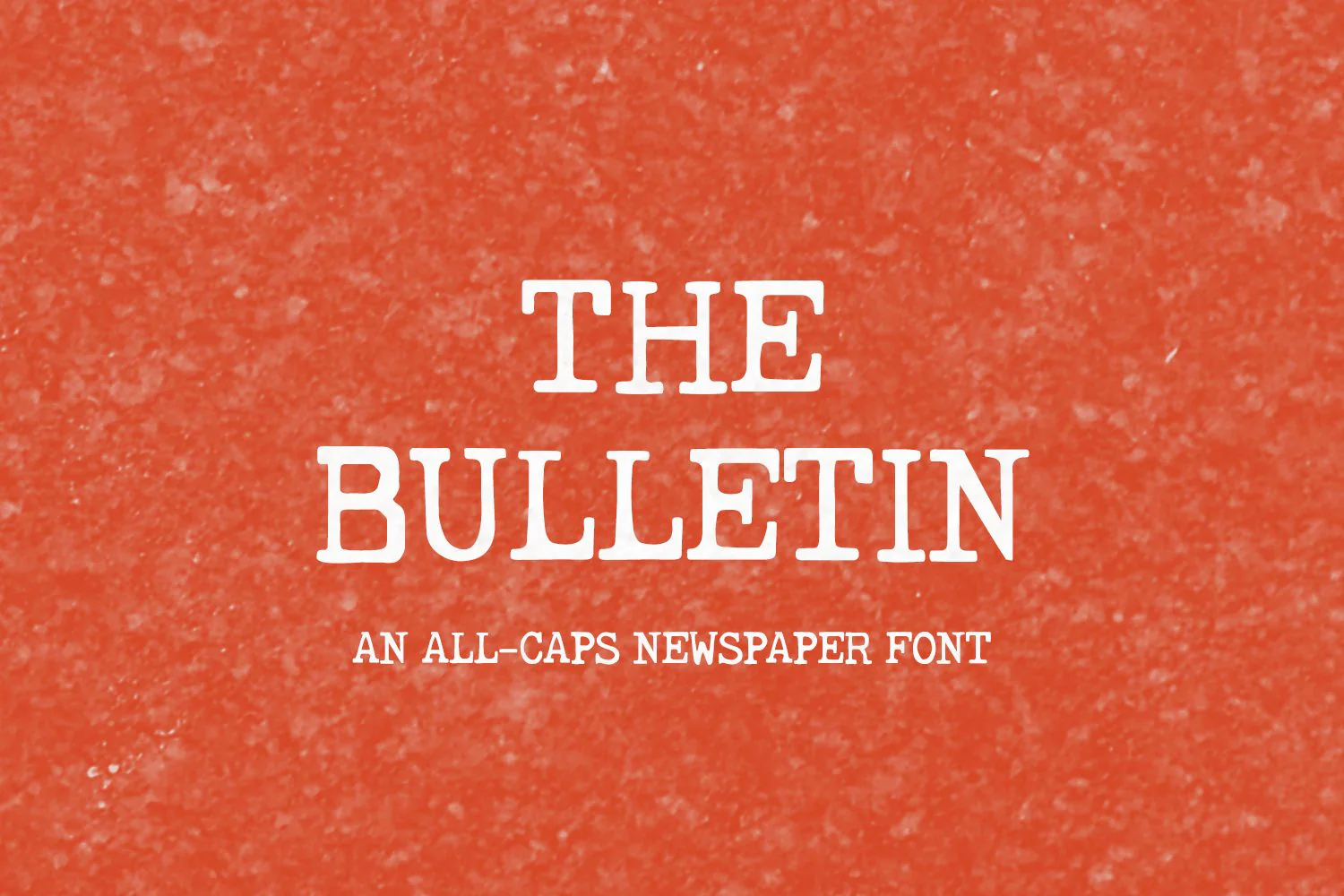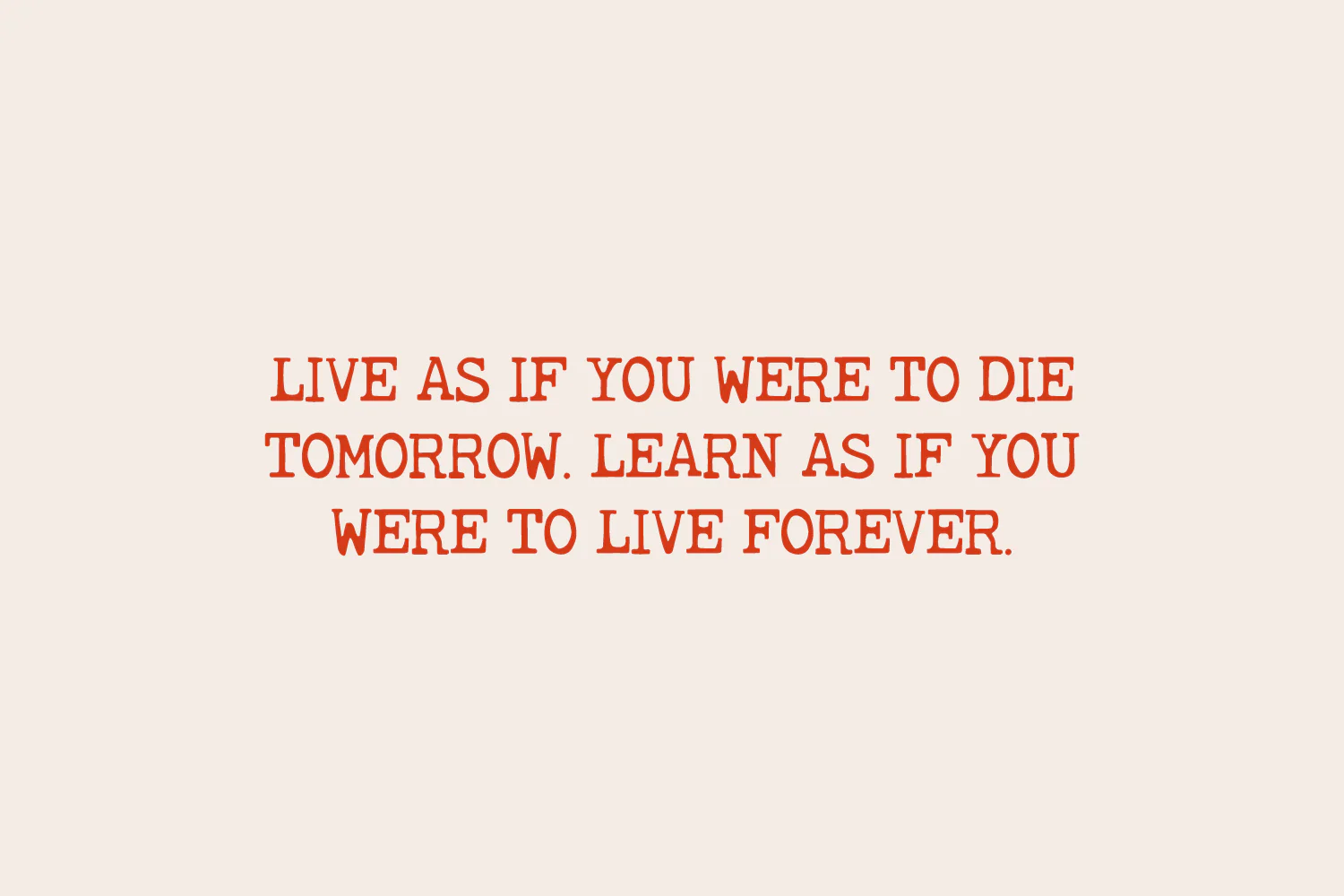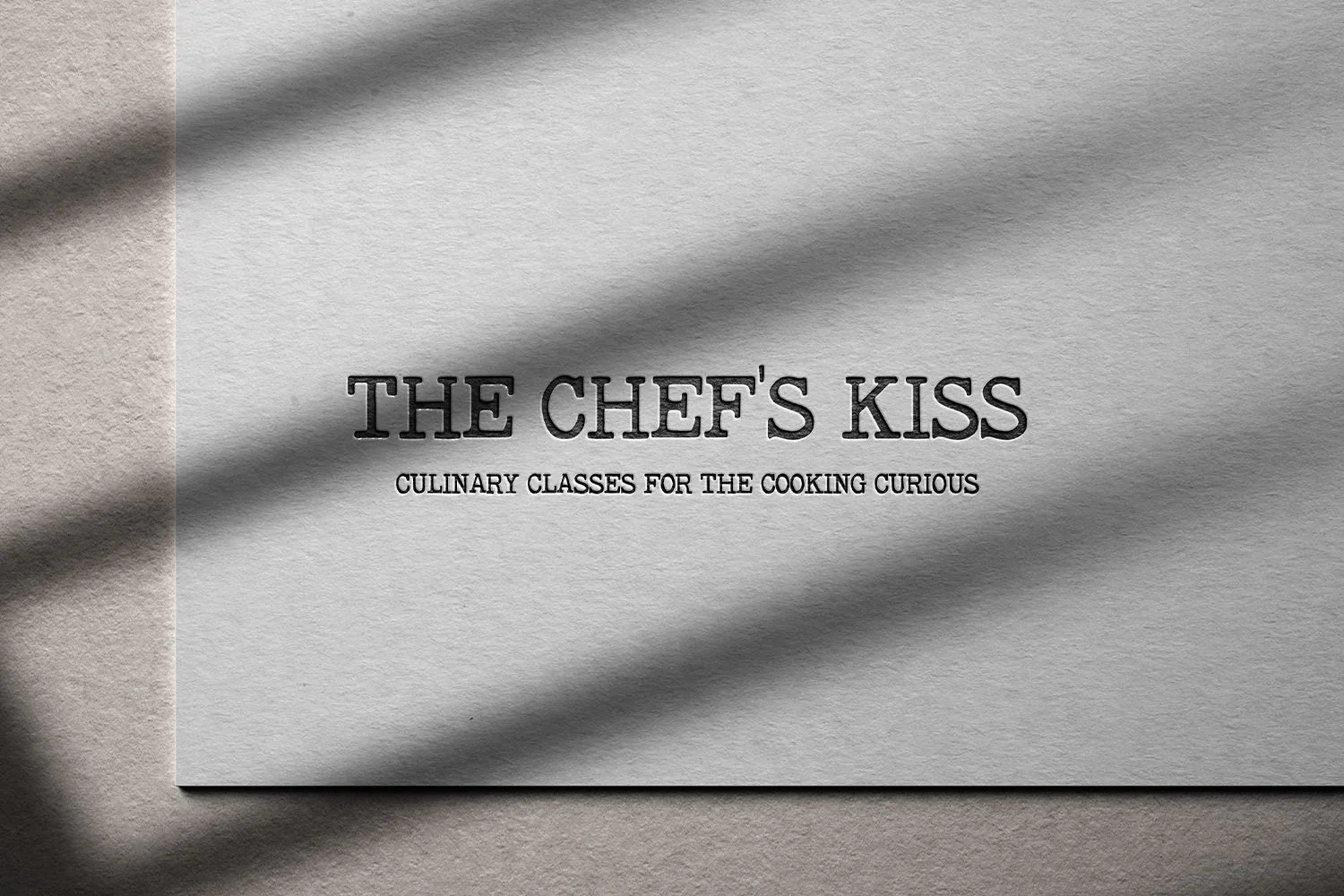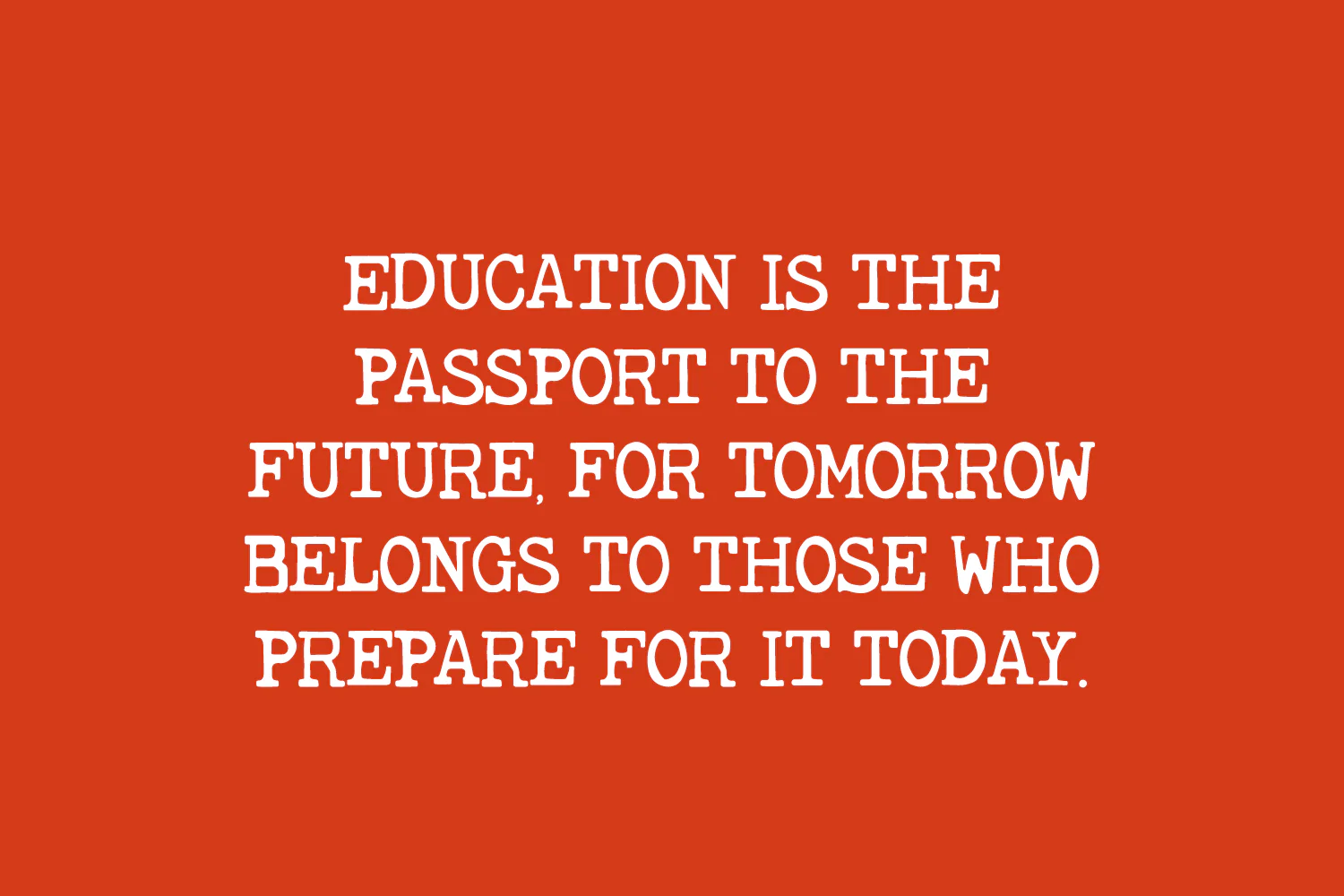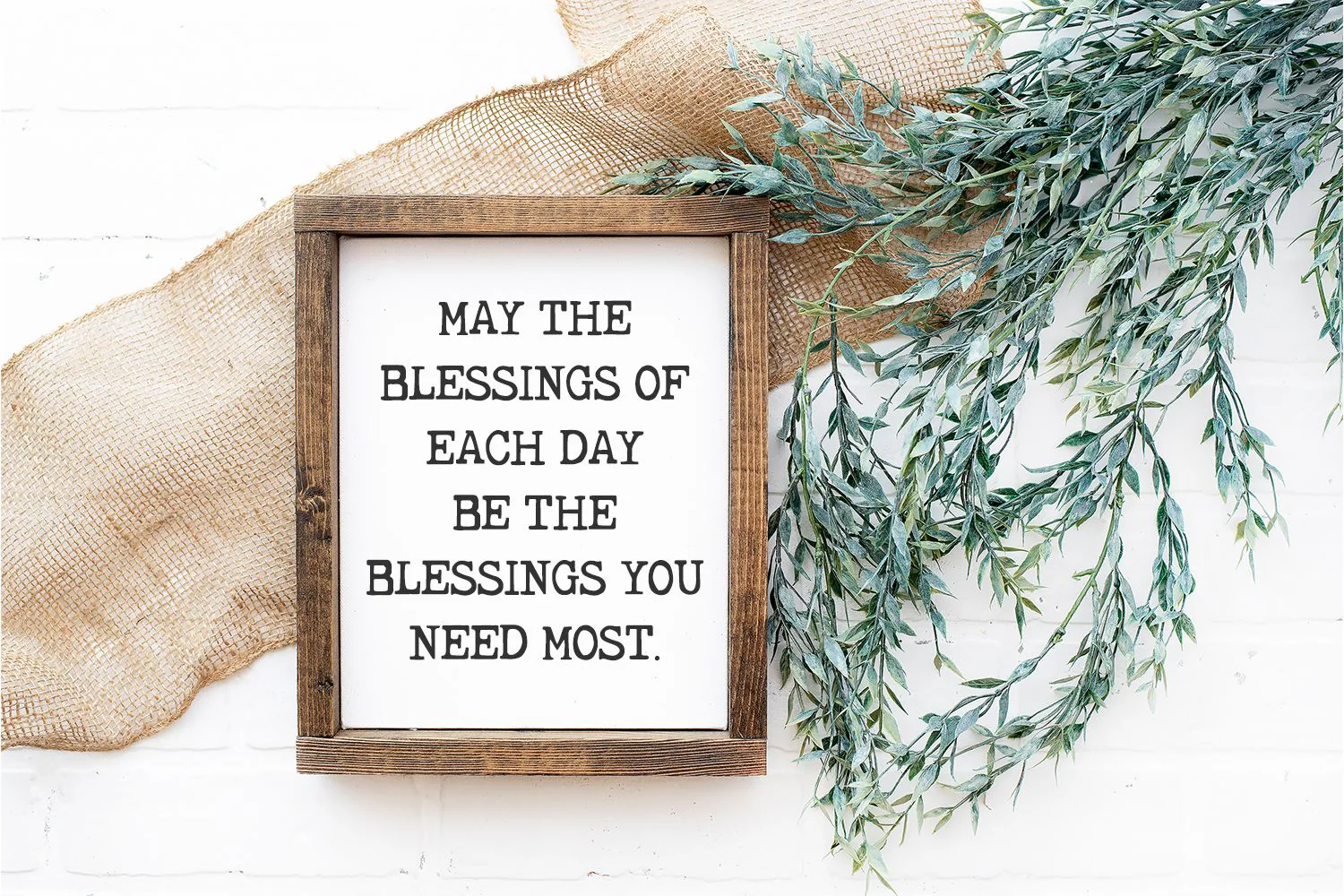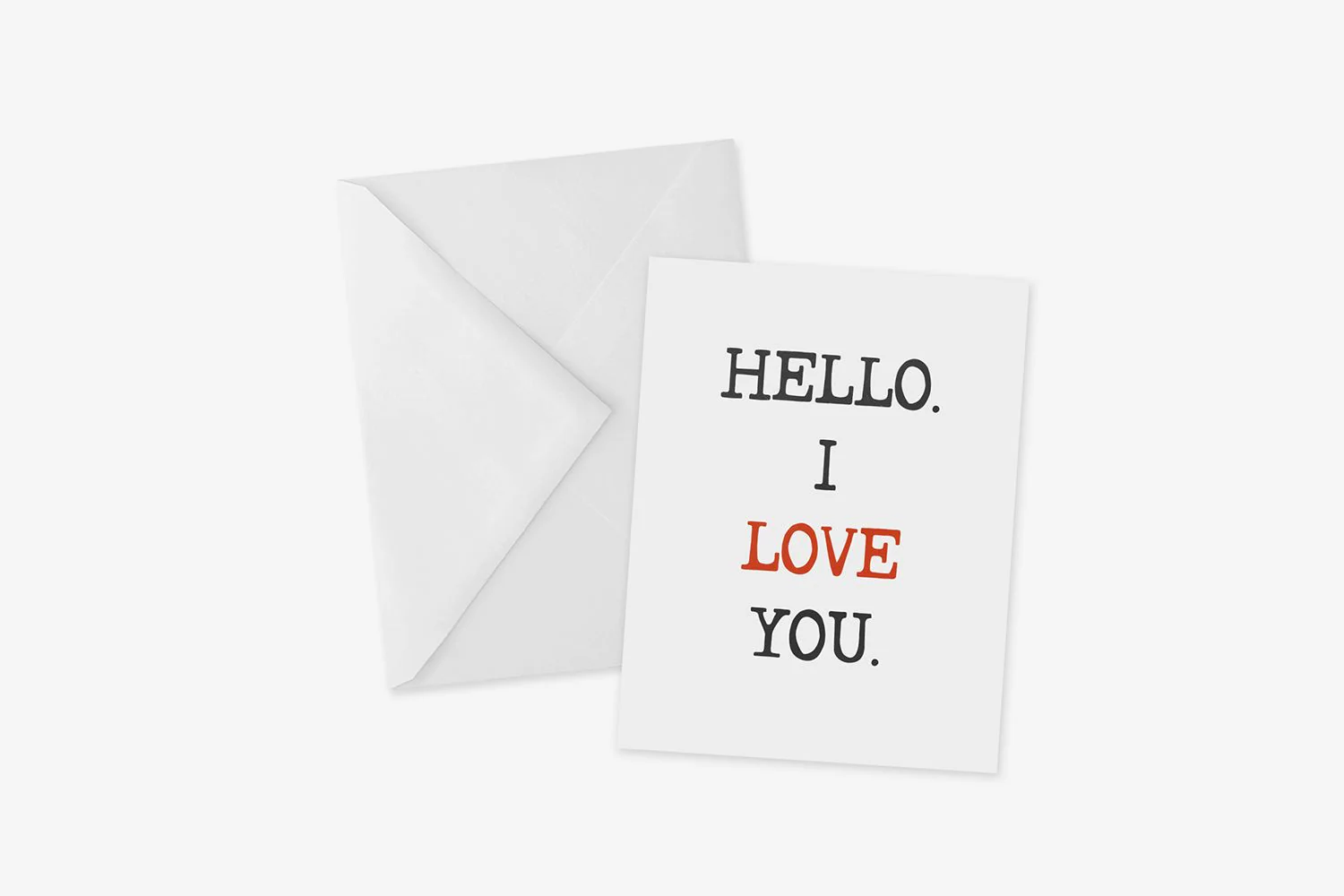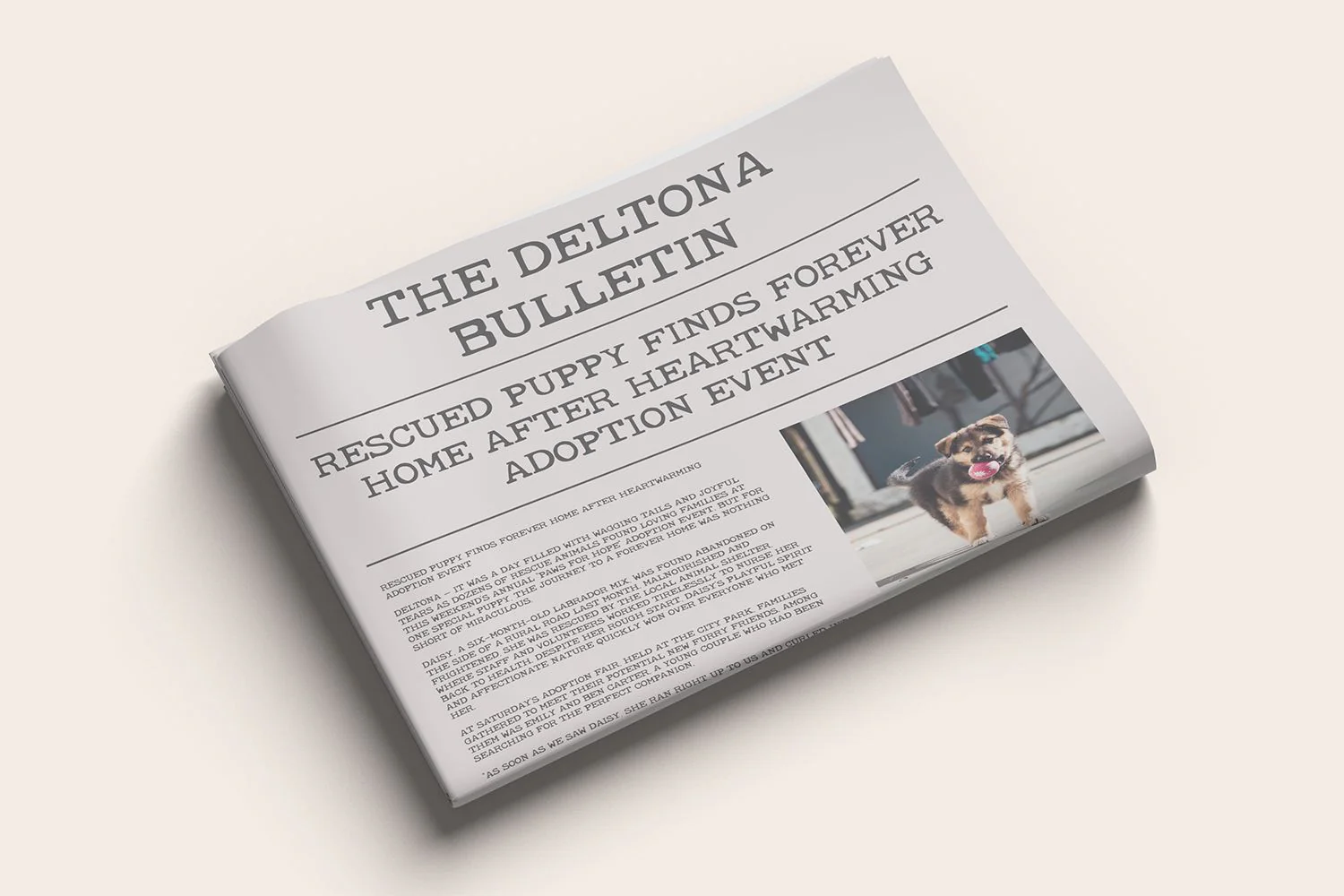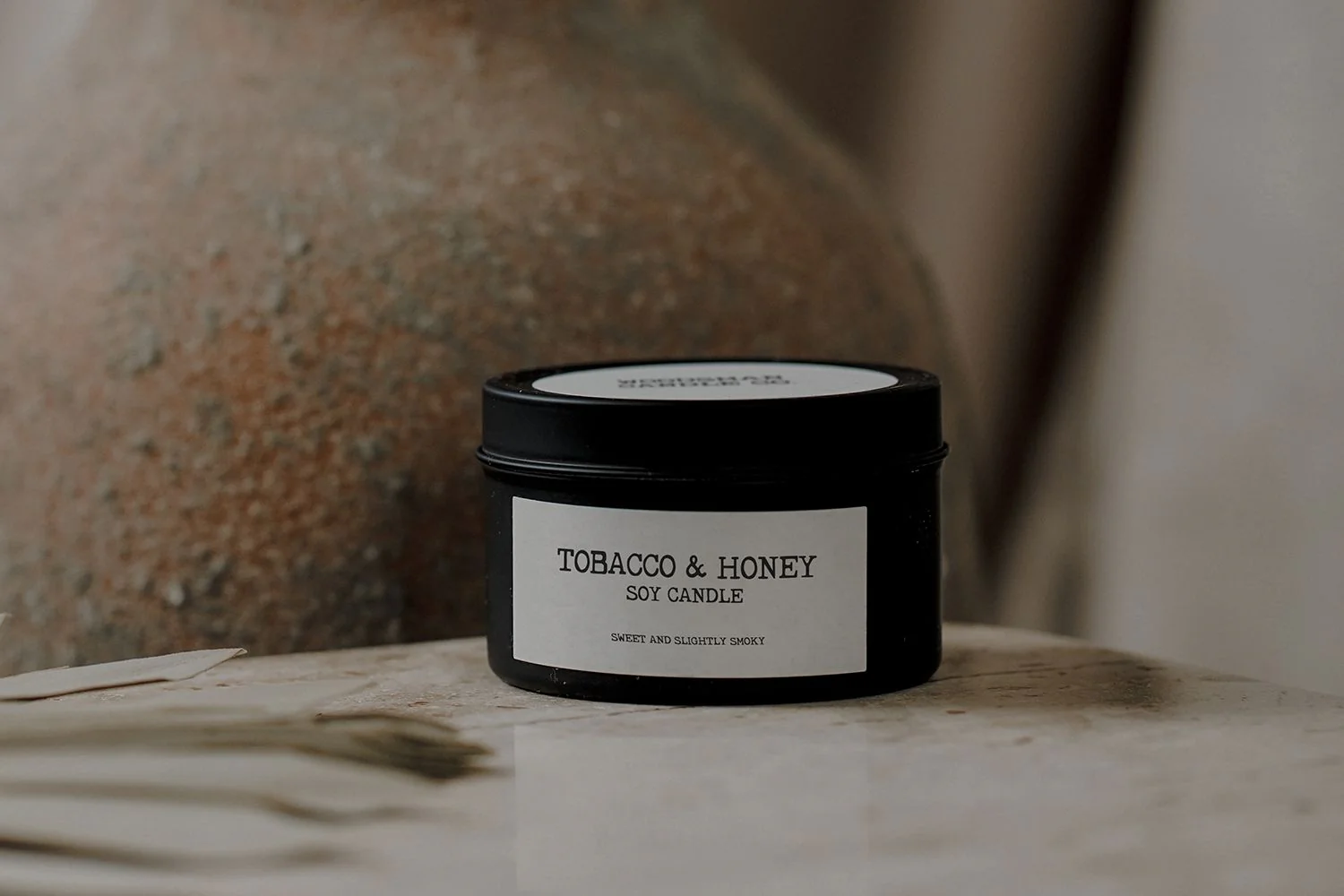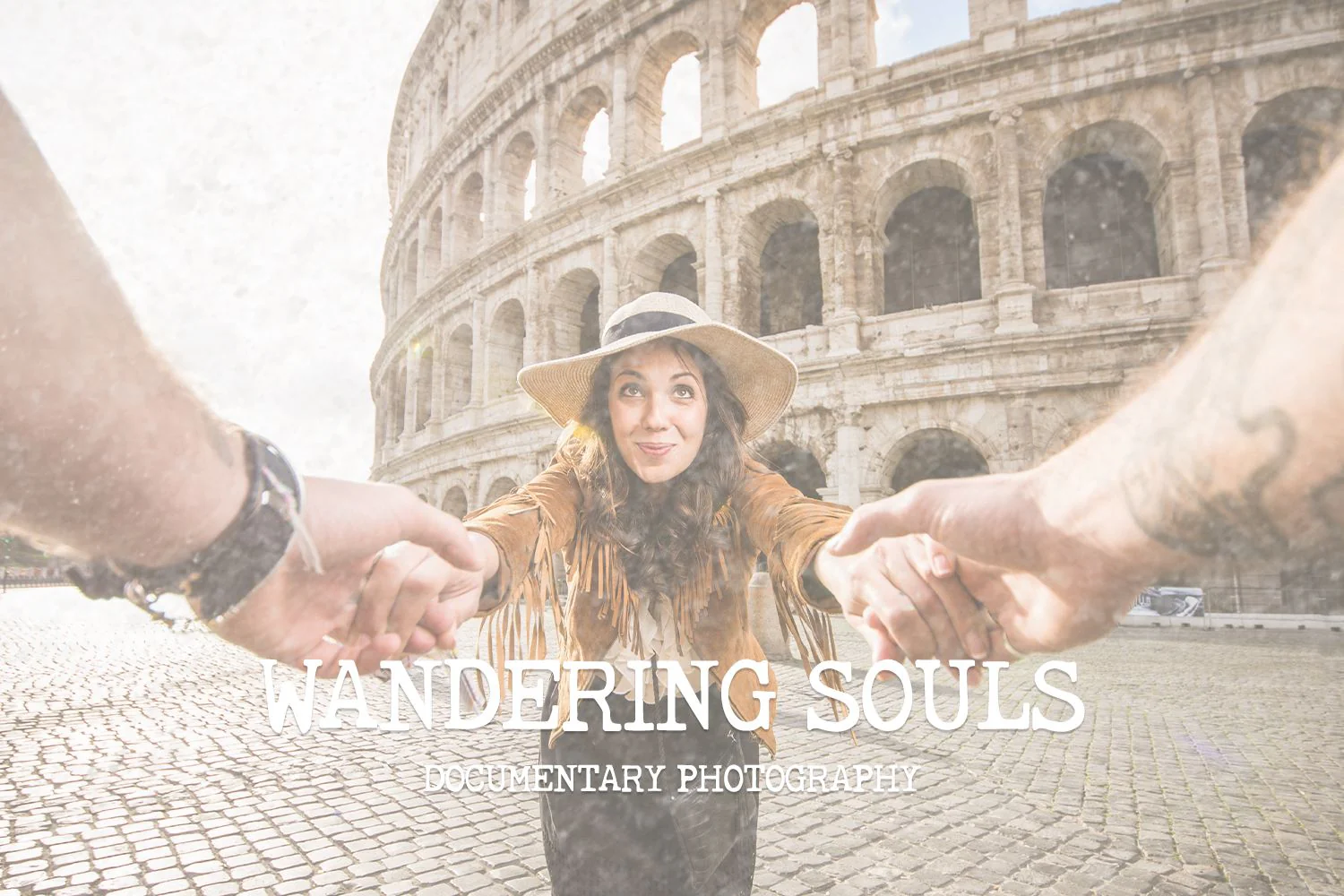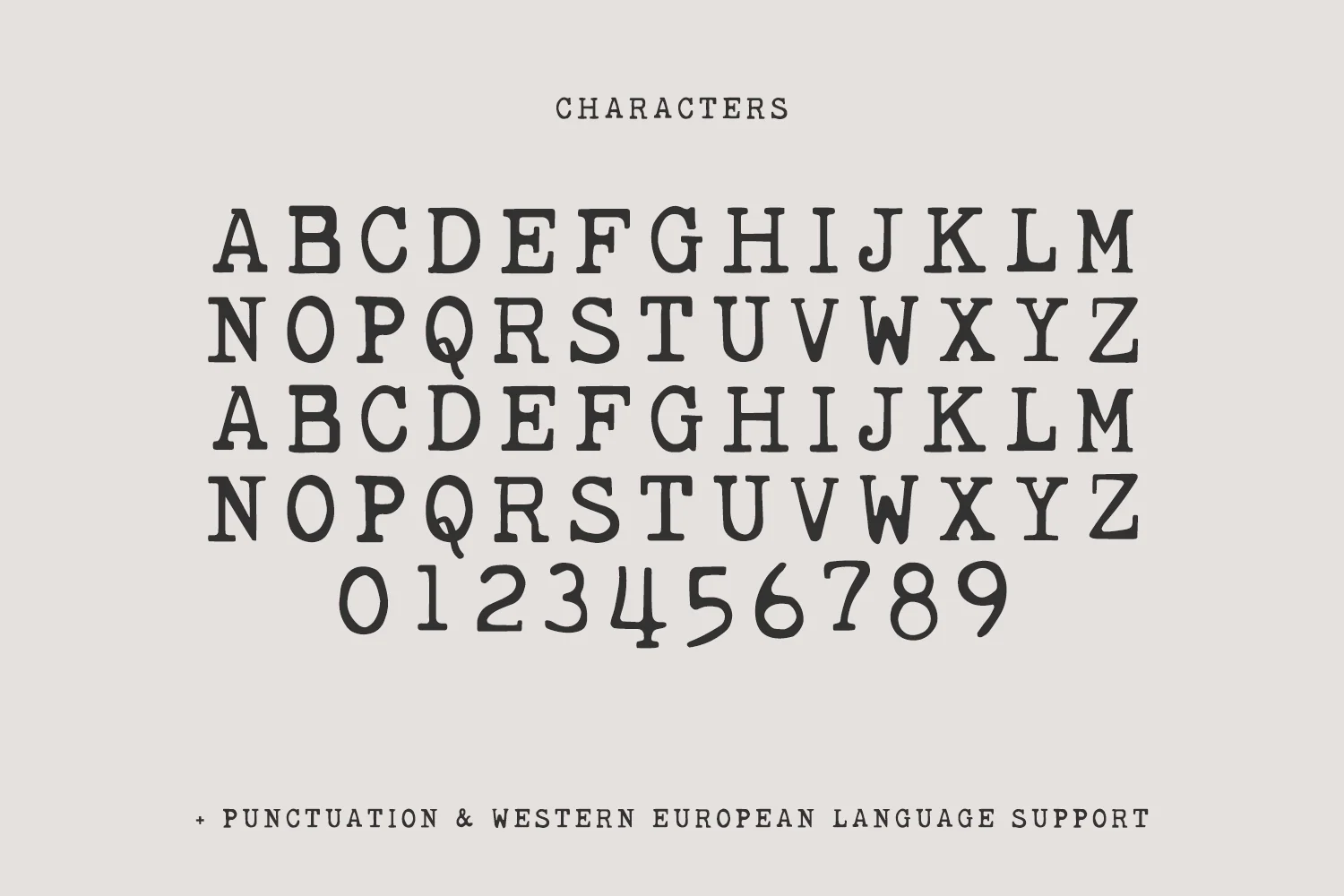
The Bulletin Typewriter Font
Introducing The Bulletin, an all caps typewriter style font. The Bulletin is bold & legible with a newspaper-like style. This font would be a great fit for logos & branding projects, print products like greeting cards, book covers, or magazines, label & product packaging design, and social media graphics that grab your attention.
- full uppercase characters programmed into both upper & lowercase spaces.
- Western European language support - English, French, Spanish, Portuguese (Brazil), Portuguese (Portugal), Italian, German (Germany), German (Austria), Dutch, Danish, Swedish, Norwegian (BokmĂĄl and Nynorsk), Finnish, Icelandic, Irish, Welsh